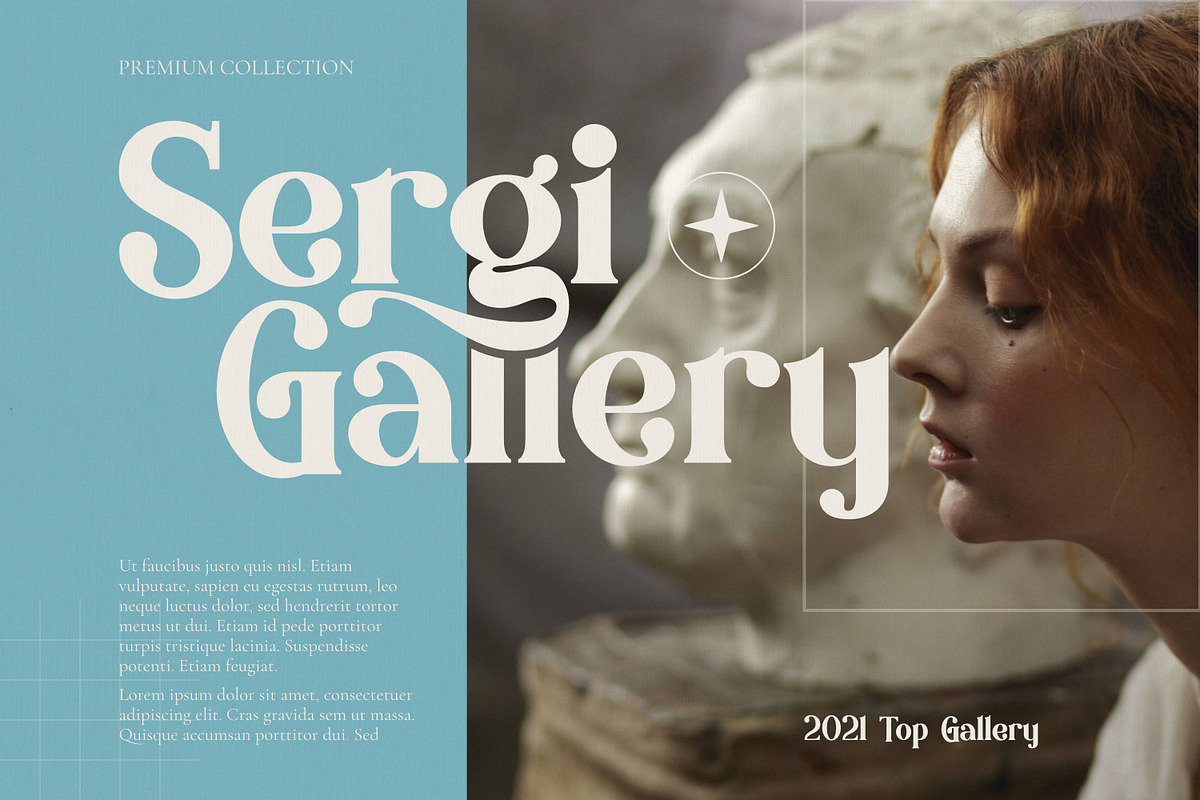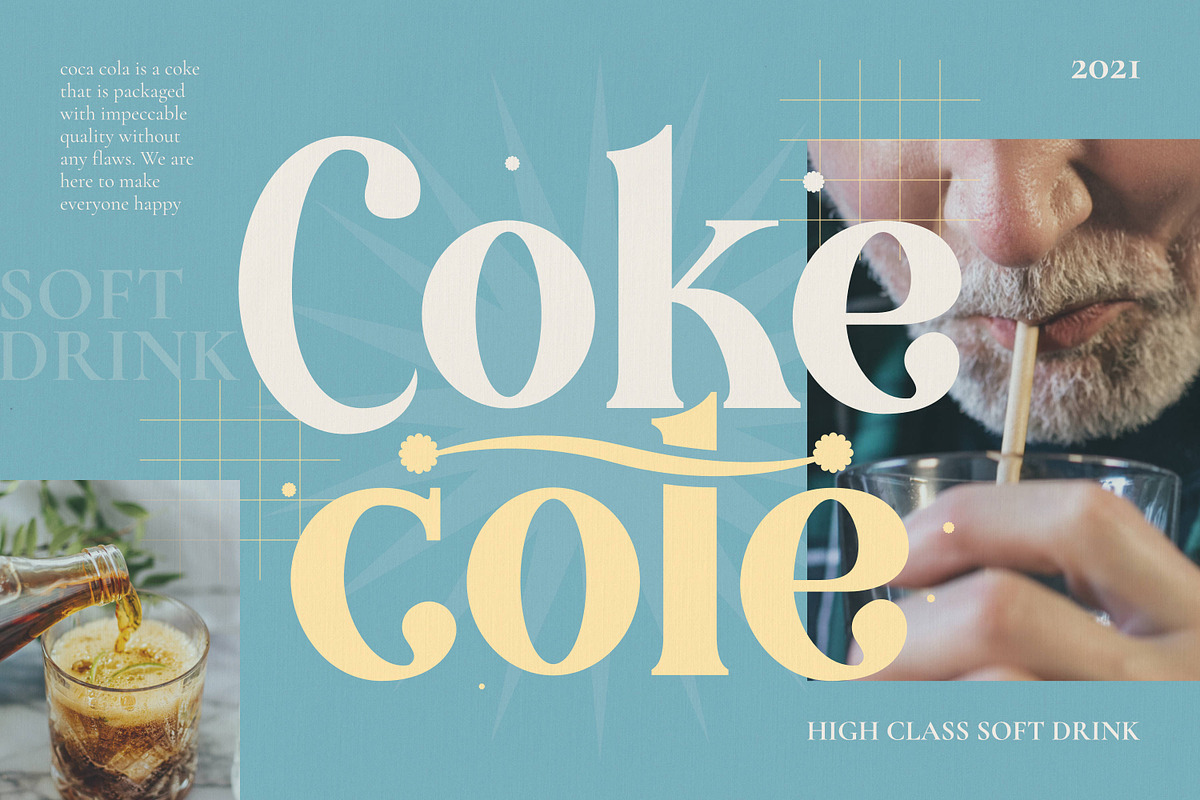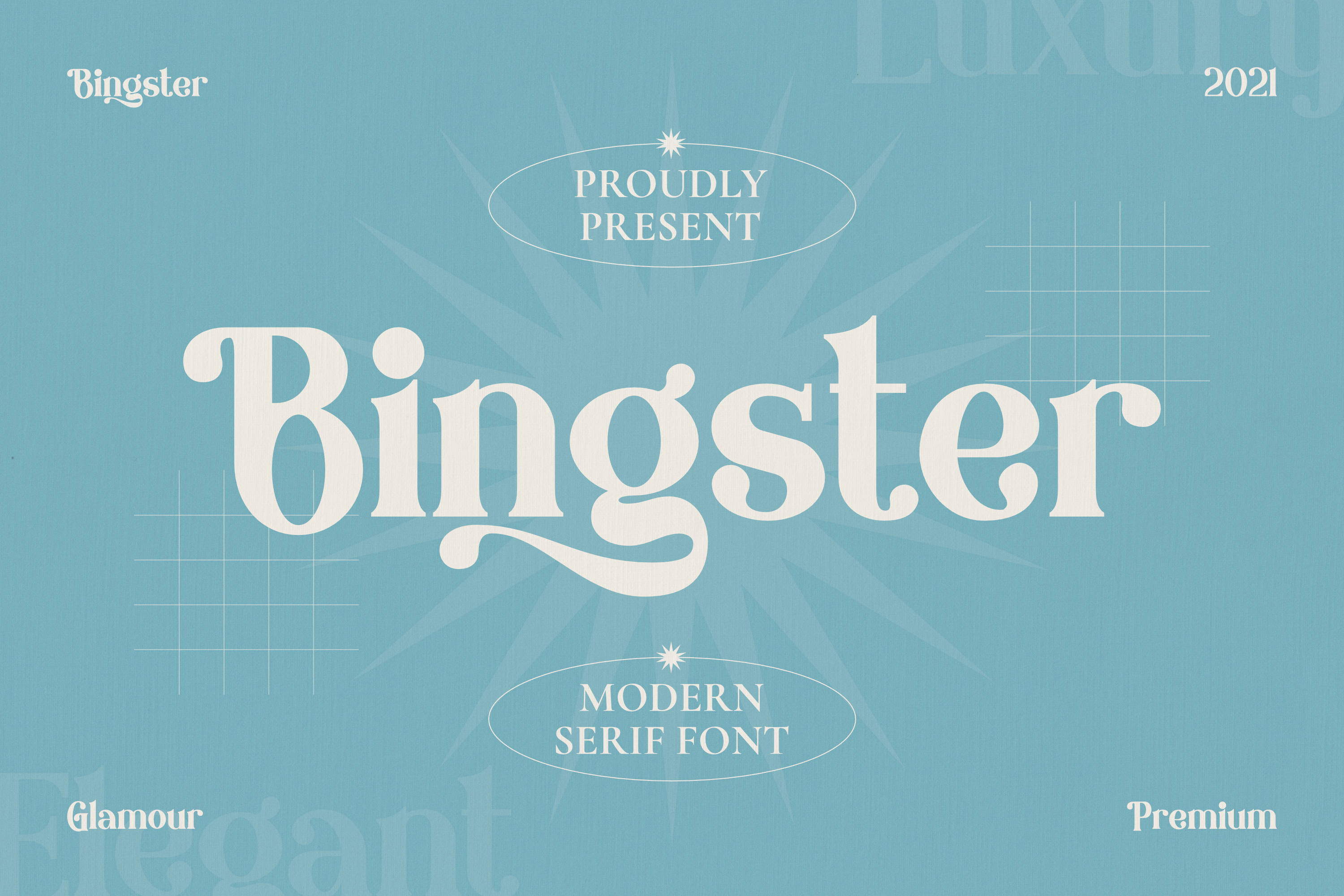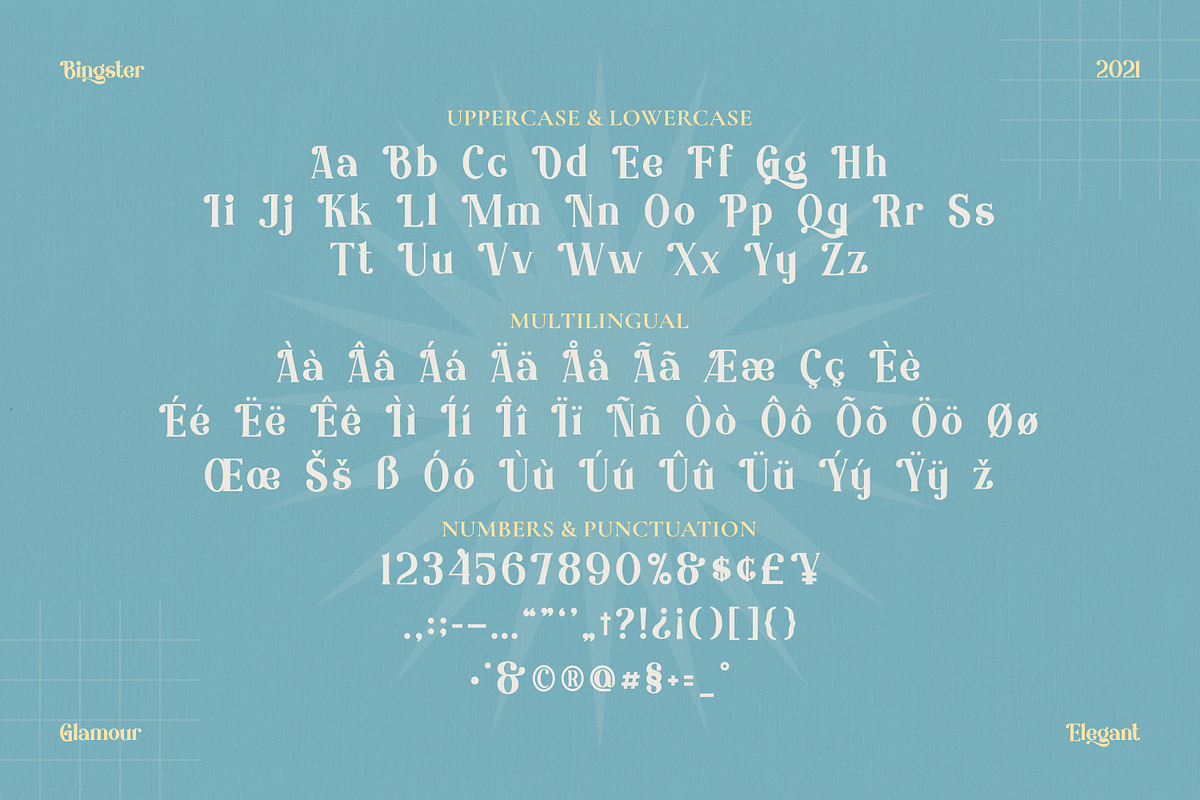
Bringster - Modern Serif Font
Introducing “Bringster” - A modern serif font. Bringster also includes a bunch of alternates characters to give you a wide range for create an unique typographic design results. Bringster is perfect for an elegant & luxury logo, book or header, fashion brand, magazine, clothes, lettering, quotes, and so much more.
- Alternatives Character